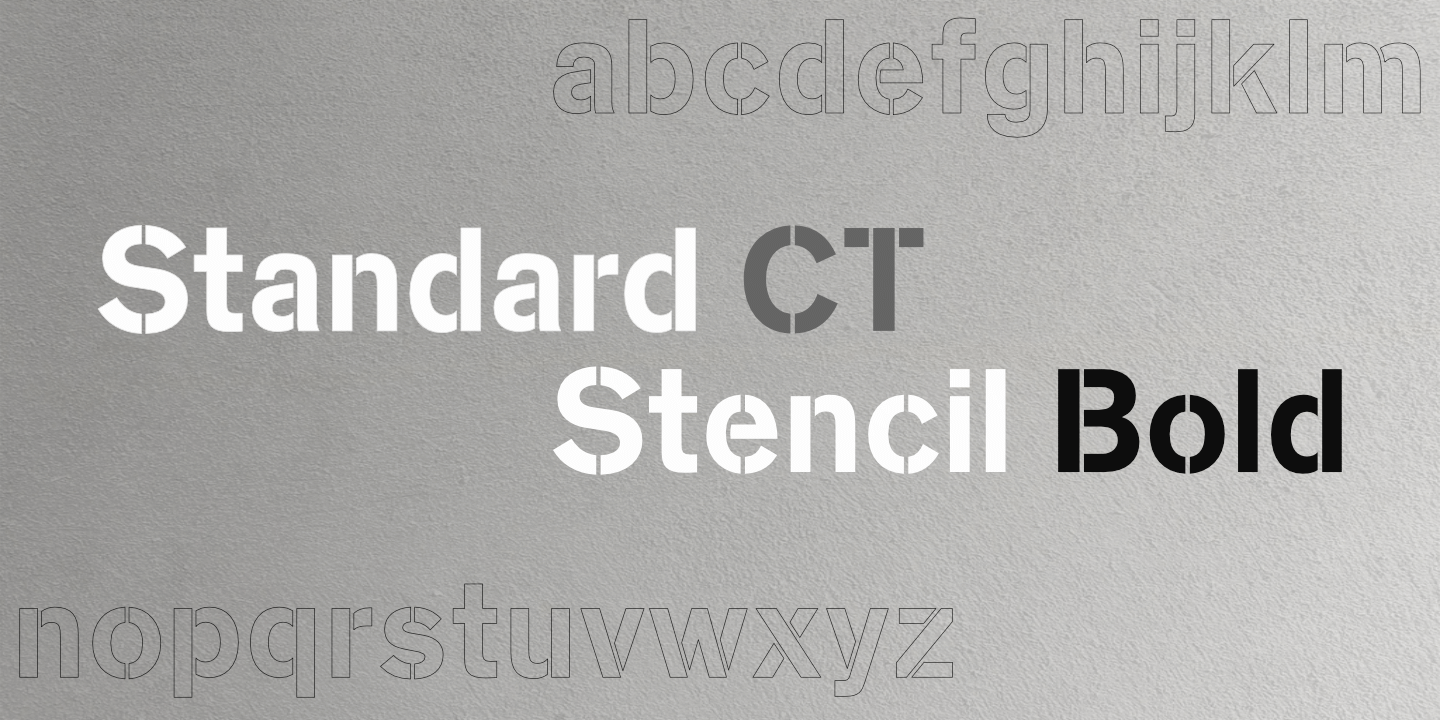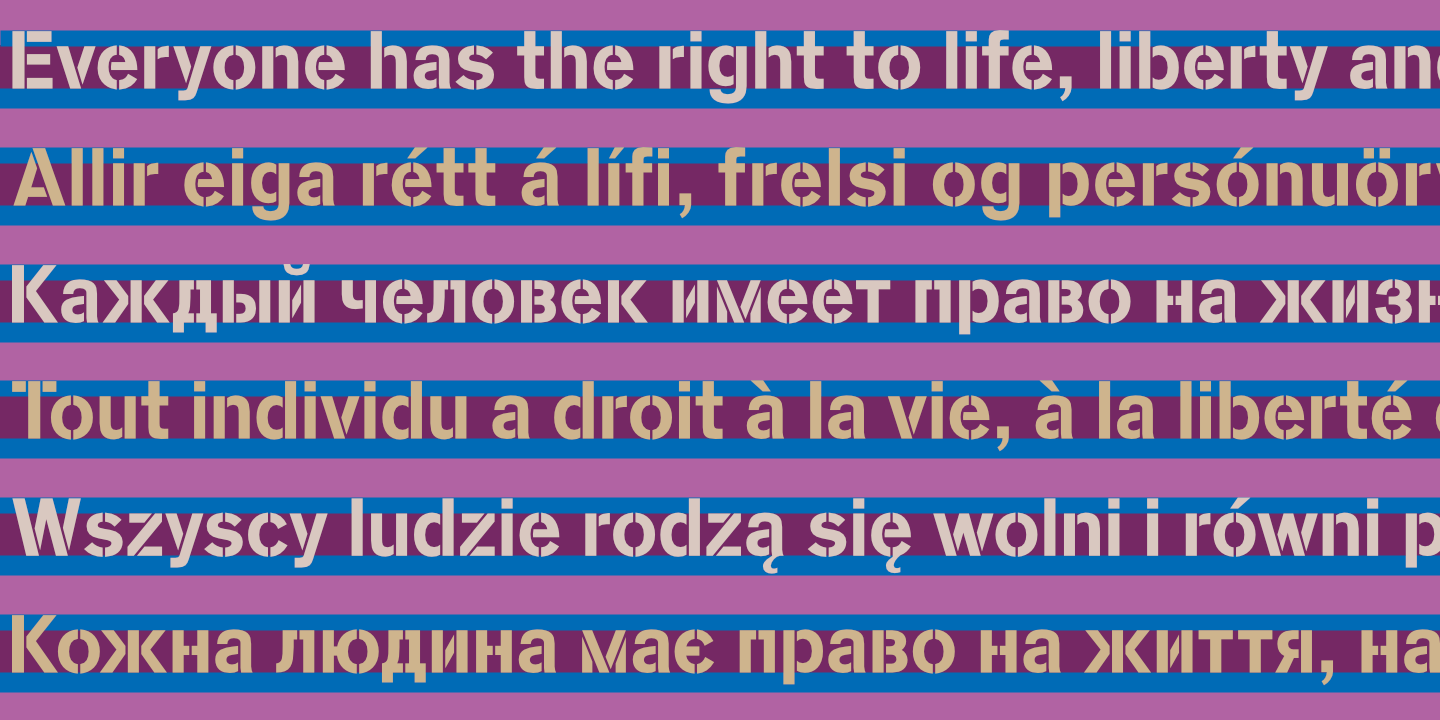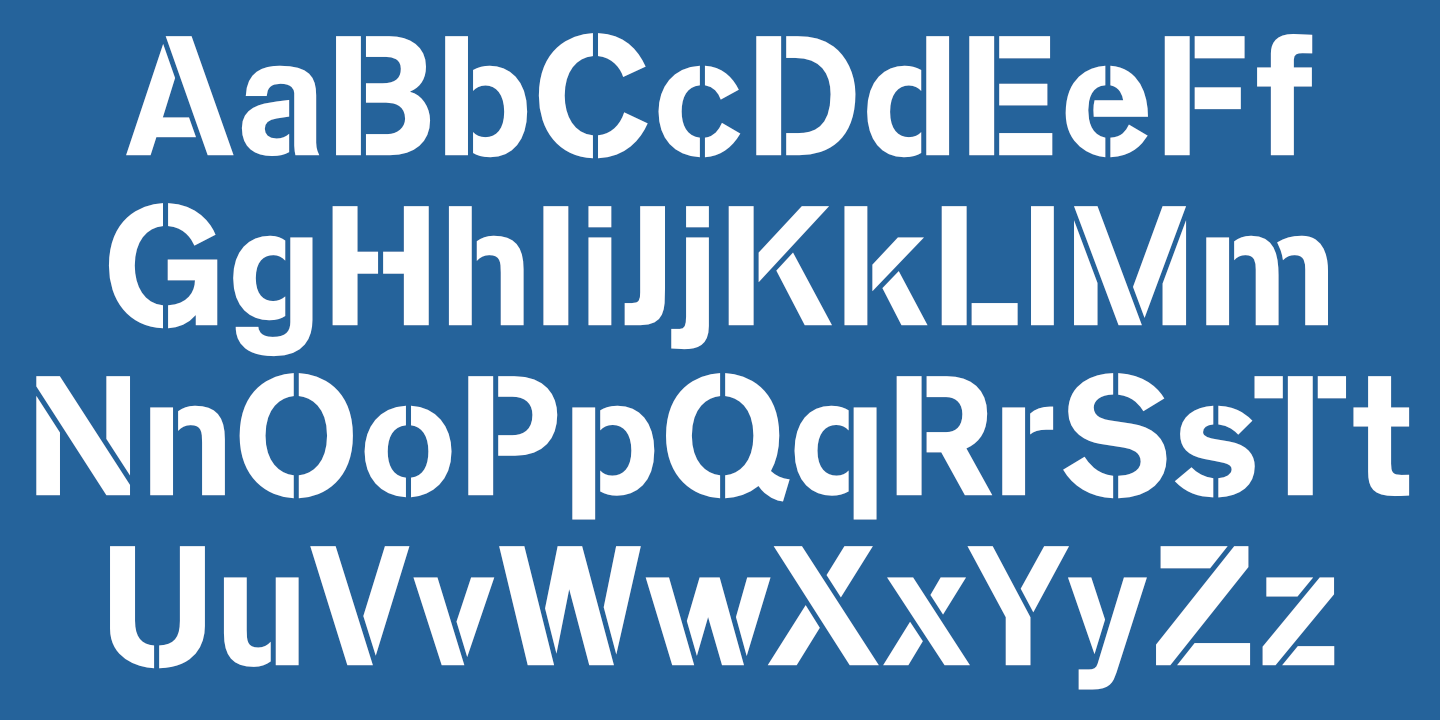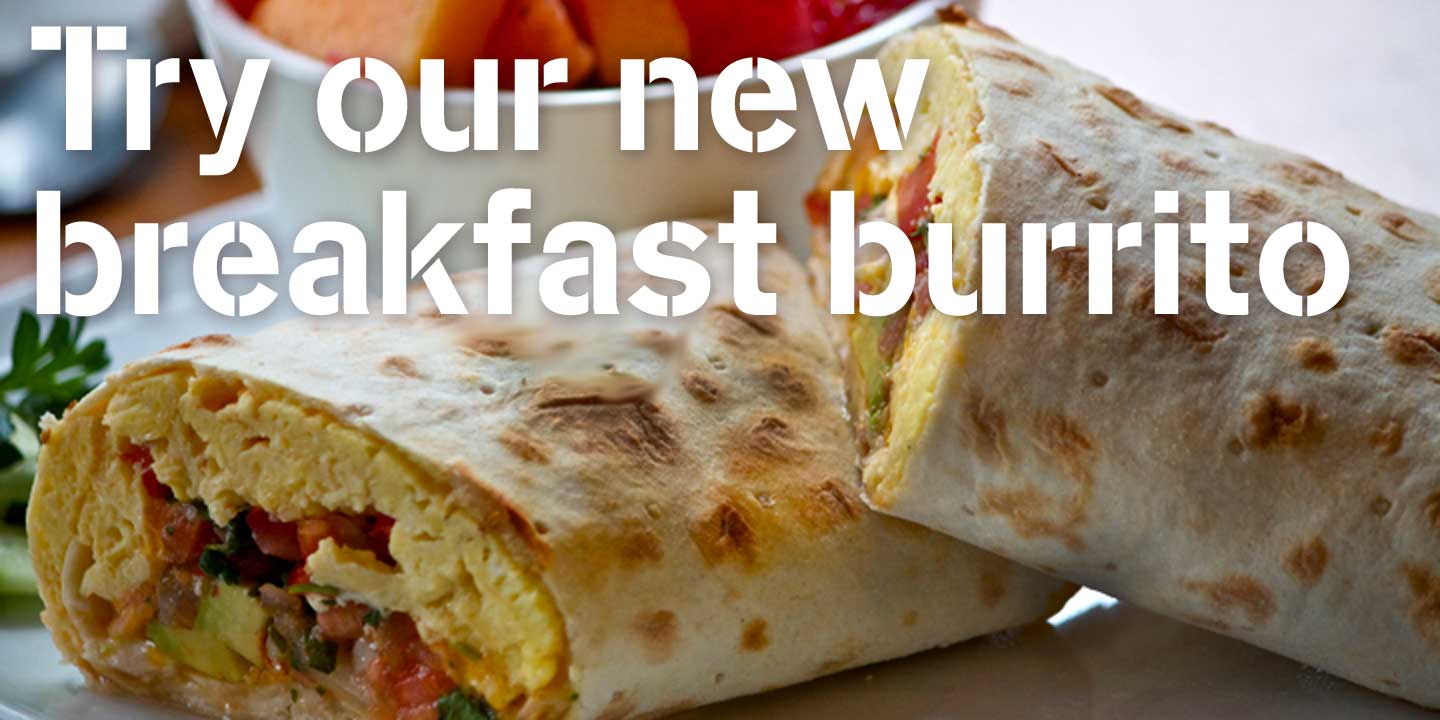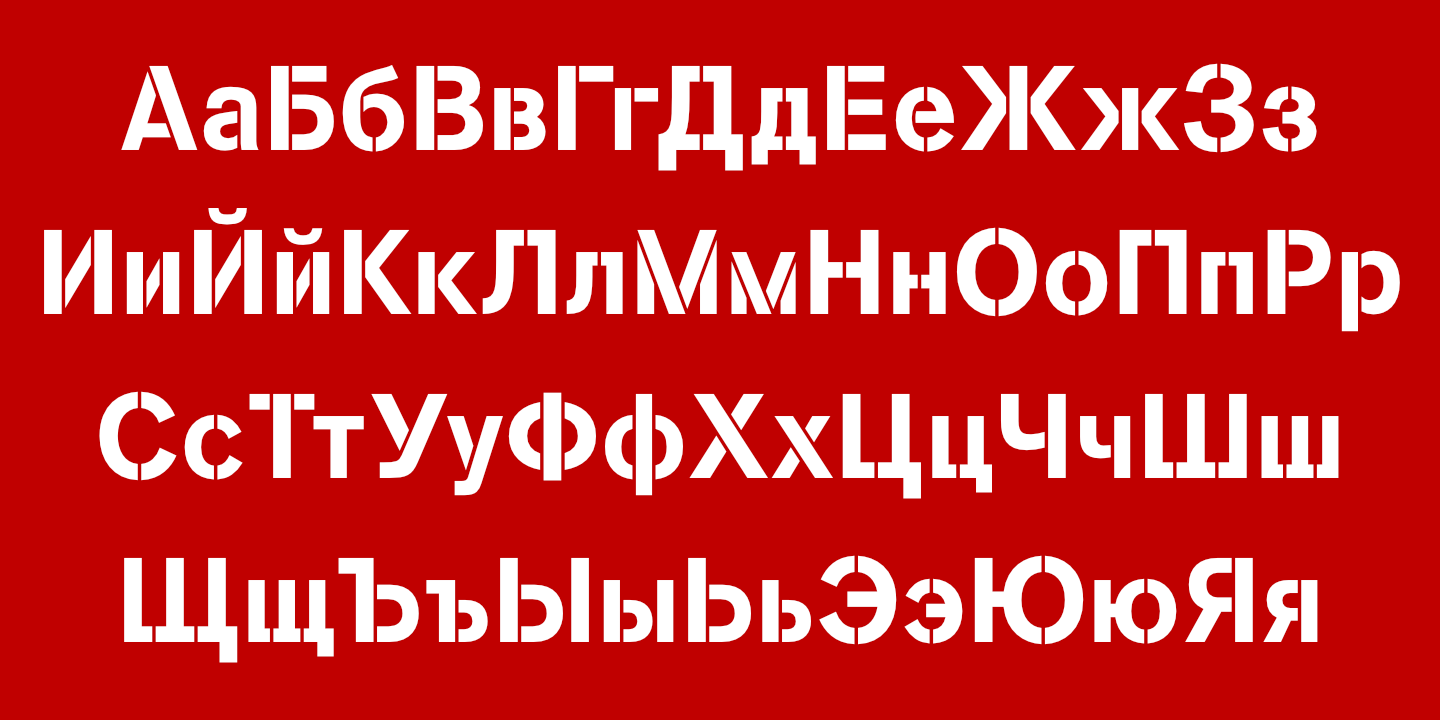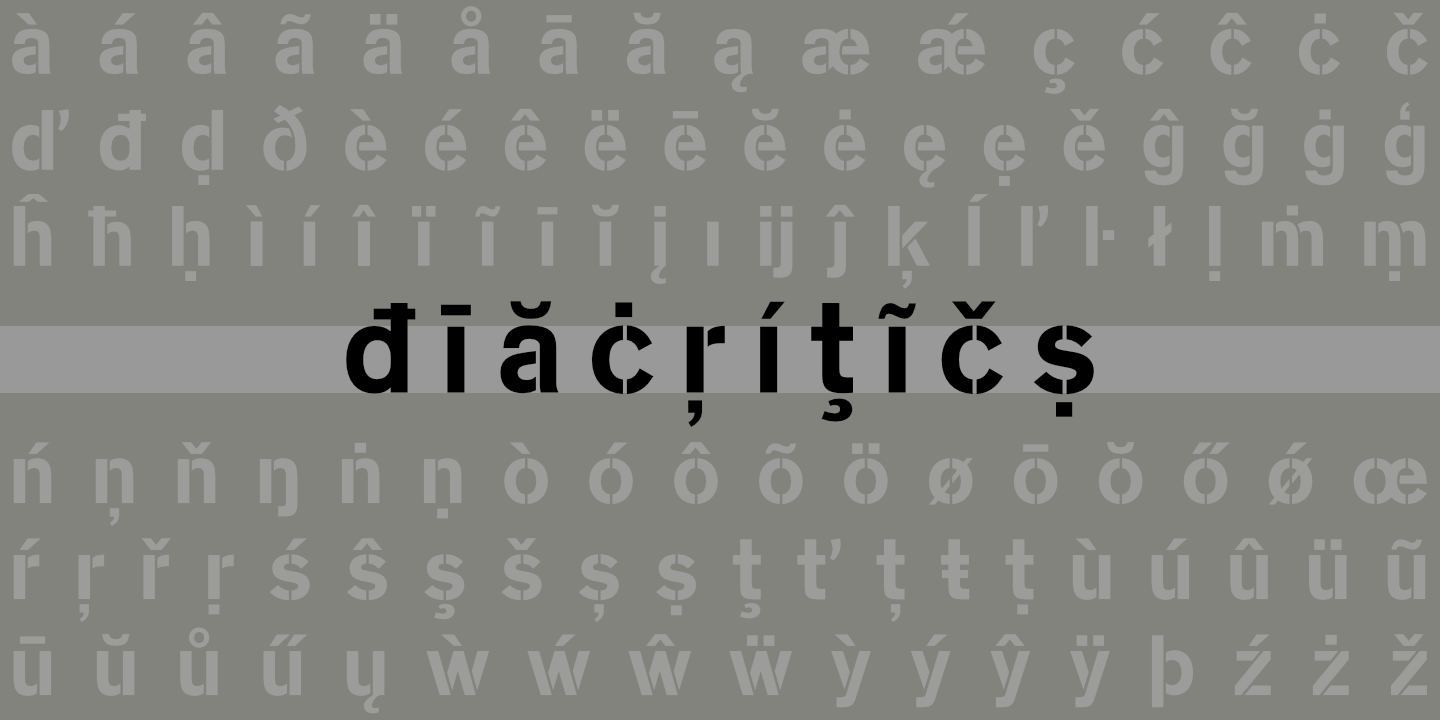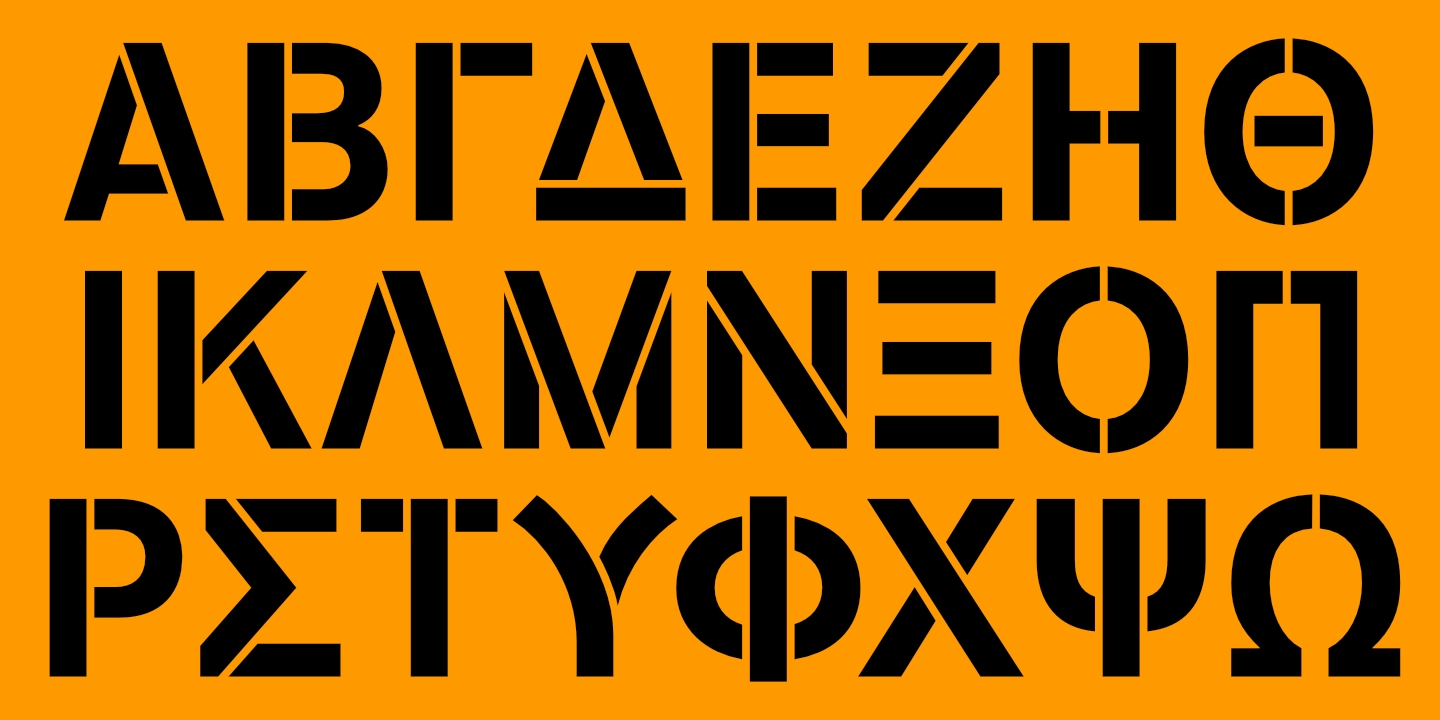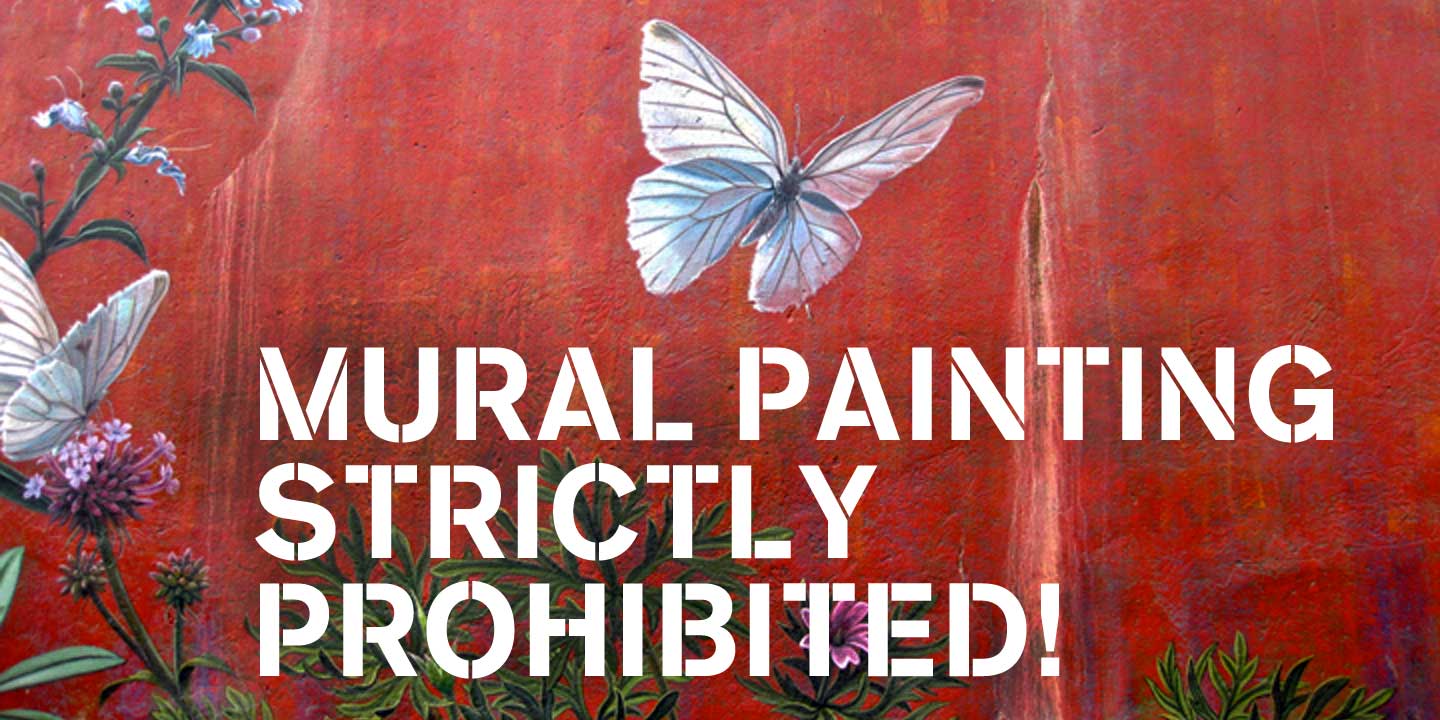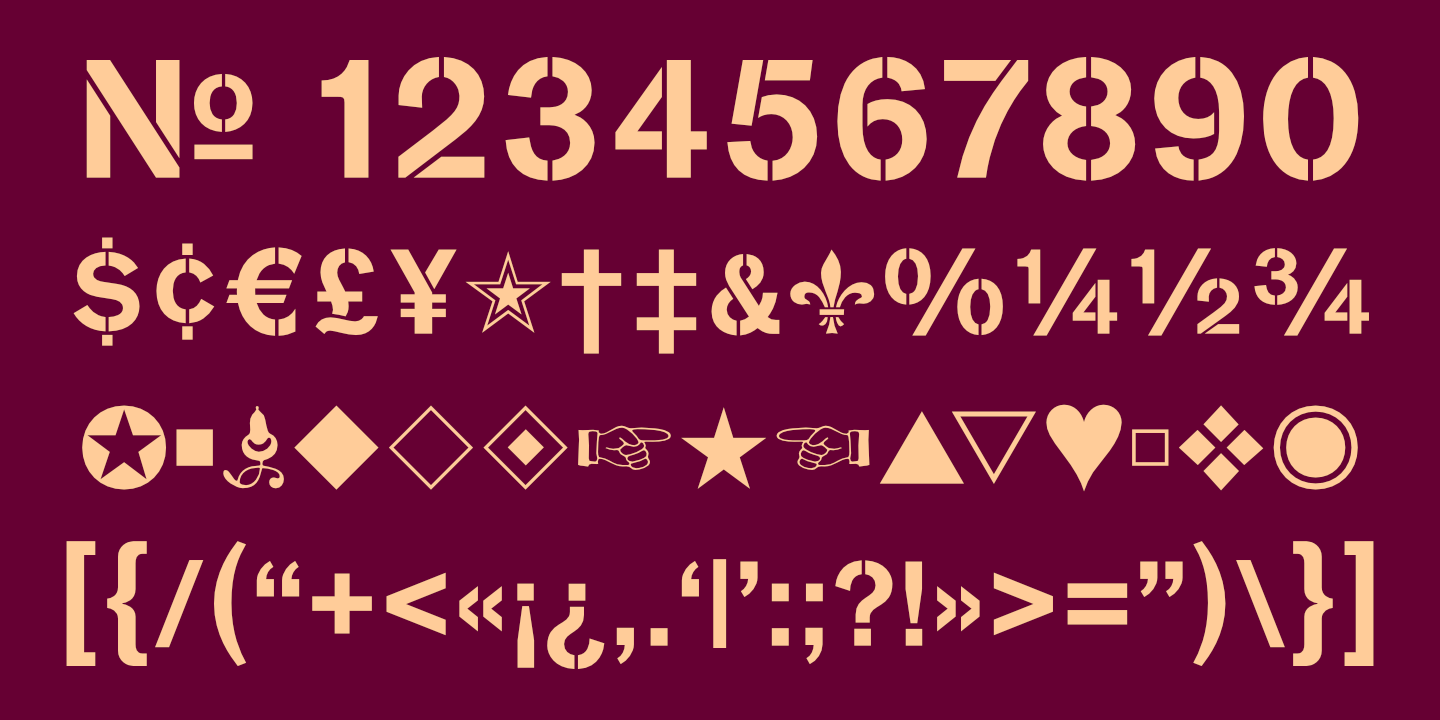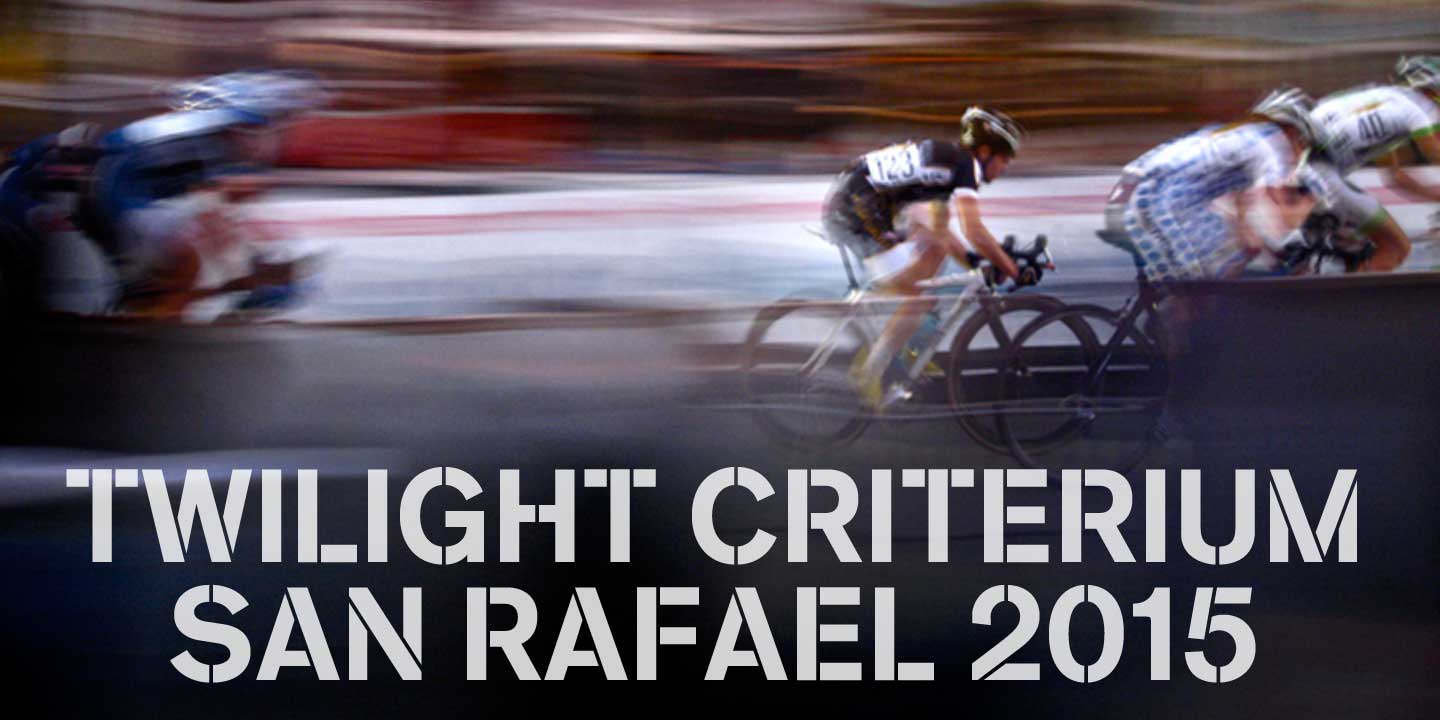
Latin Alphabet
Standard CT Stencil Bold: Basic Latin alphabet. See Glyphs for details.
Russian Alphabet
Standard CT Stencil Bold supports most languages that use the Cyrillic alphabet. See Glyphs for details.
Greek Alphabet
Standard CT Stencil Bold supports modern Greek, uppercase only. See Glyphs for details.
Numerals, Punctuation, etc
Standard CT Stencil Bold supports most European languages.
Stacked text
Notice that light text on a dark background appears slightly heavier than dark text on a light background. blank
Diacritics
Standard Family
All 38 Standard CT fonts for comparison. Zoom for detail.
Twilight Criterium
Happy birthday
Standard Stencil Bold supports dozens of languages from around the world.
Mural
STANDARD (Greek)
Magnolia grandiflora